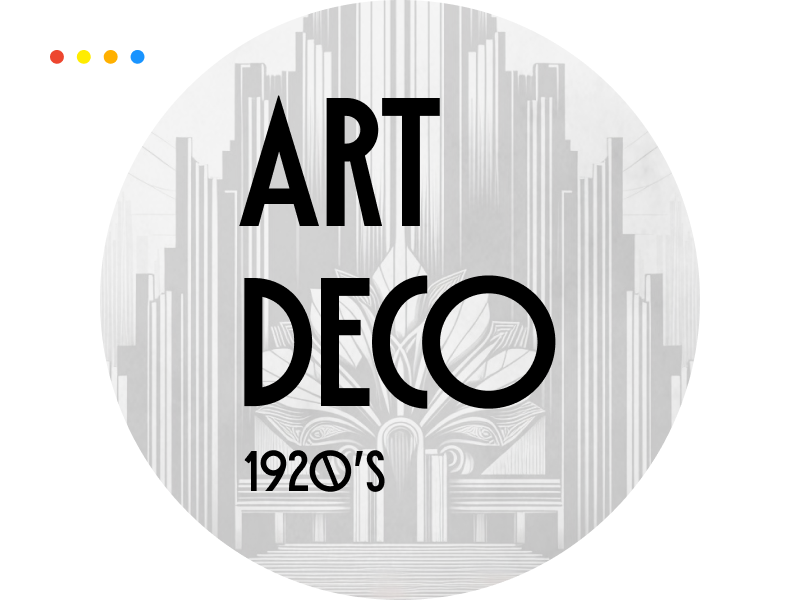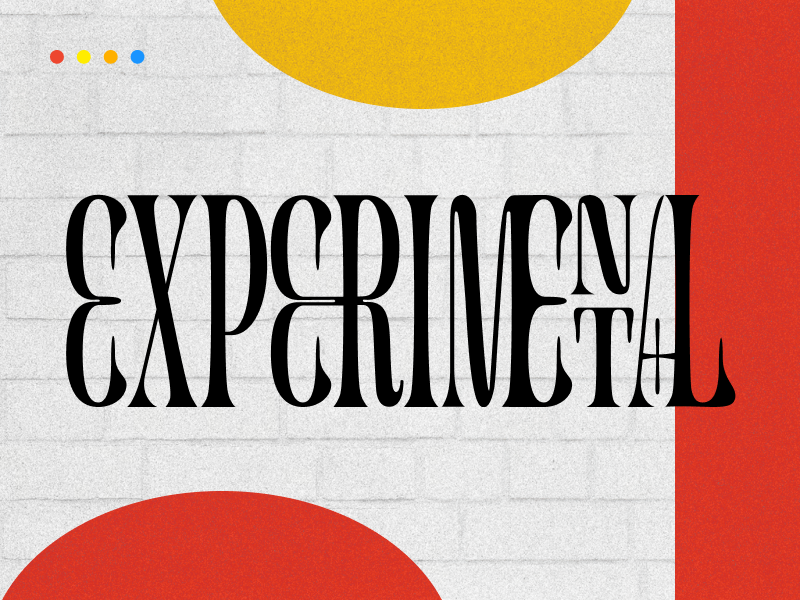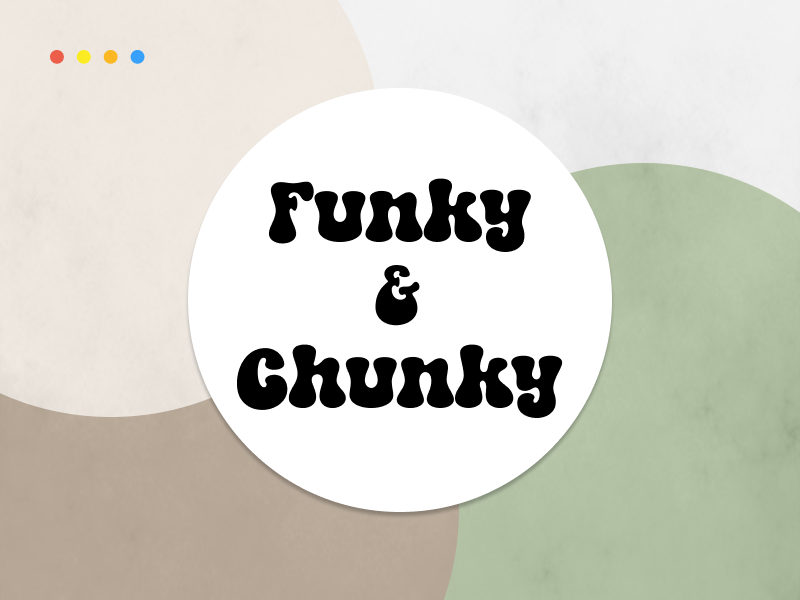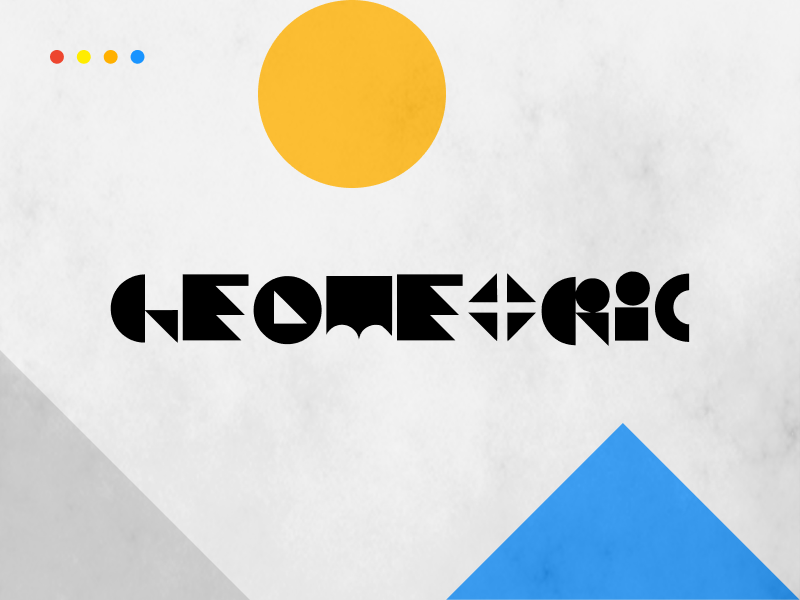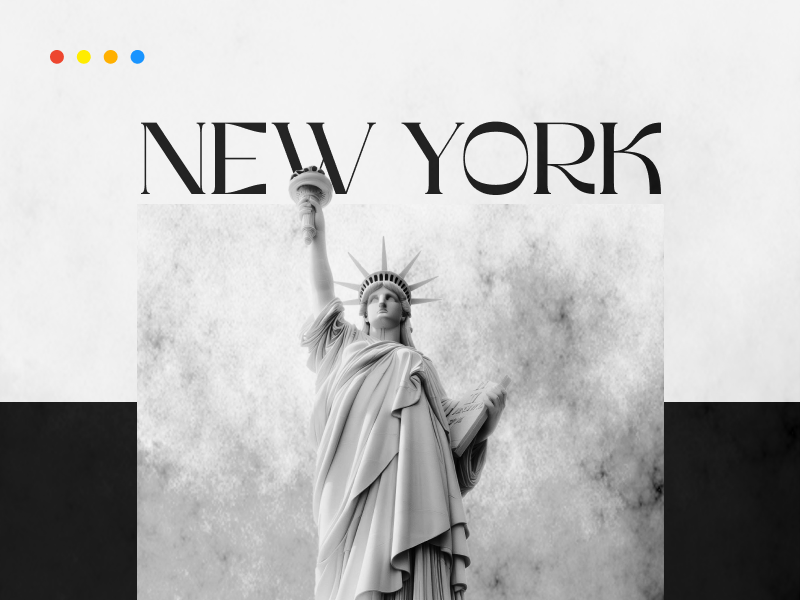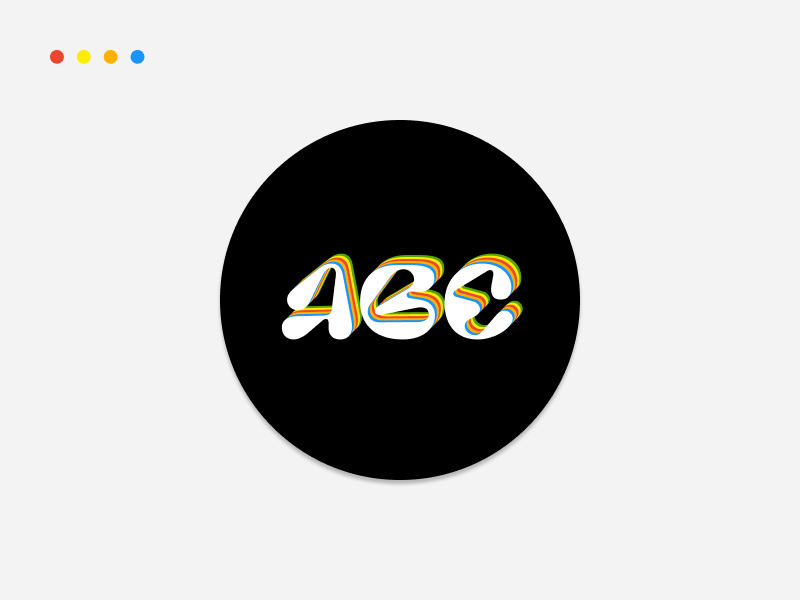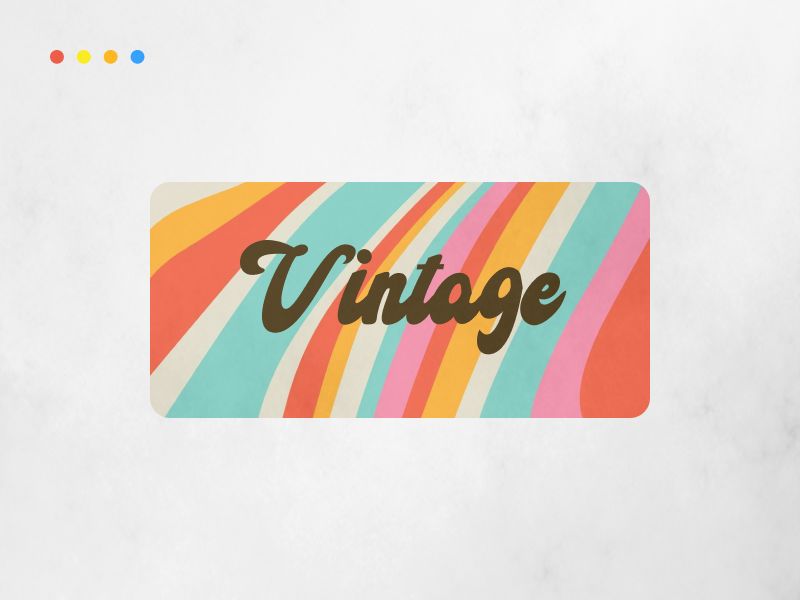
It’s again that exciting part of the year when new graphic design trends begin to emerge. As for the 2024 font trends, there are already some interesting styles placing themselves among the hottest trends of the year.
Due to the importance of typography in web design, staying aware of font trends – what stays, what goes, and what’s new – is a must. Outdated fonts can quickly bring an outstanding design down, making you waste time and precious resources. On the other hand, taking advantage of new font styles can make your designs look modern and stylish.
In this article, I’ll show you which 2024 font trends demand your attention. You’ll learn about the best typography of this season and how they fit different brands so you can always choose the best font for your project.
The design world moves fast, making it challenging to keep up. I have already been exploring some new typography styles at my Los Angeles web design agency to figure out which trends will make it big this year.
If you own a design agency, are a freelance designer, or a design enthusiast, these are the eight 2024 font trends to keep an eye on:
Clean and minimalist font styles have been part of trend lists for a few years now, and 2024 won’t be the exception. Simple and aesthetic typography continues to appeal to users and drive sales. Since the minimalist graphic design style is also a hot trend for the year, this type of font is a must-try.
The best minimalist fonts are simple and elegant and provide high reliability. They are characterized by clean strokes, minimal shapes, ample breathing space that evokes a modern feeling, and clear letter spacing. Sans serif fonts are the most chosen typography when it comes to clean and simple trends.
This style is ideal for classy and luxury website design for brands looking to convey a sense of sophistication. They shine the most on web headings, but you can also use them for the body text. Minimalist fonts are highly legible, improving the overall user experience.
Retro is making a huge comeback in all design aspects, from website and logo design to fonts and social media designs. So, if you were considering getting into retro font design, now is the perfect time.
The vintage style is coming strong with its baseline lines, ornament loops, and artisan flair that deliver a warm and wispy feeling. This is a fun style to work with; this trend is all about bringing elements from the past into modern designs to make unique creations.
There are tons of fonts you can choose for your retro project, or you can even create custom fonts. The most typical typography for vintage projects is classic serif fonts with ornate details. But as I said, you have plenty of other options. Some vintage classics such as Old Standard and the Rumble Brave Vintage Fonts. And bolder ones, such as Malibu and Gunydrops.
The typical curvy lines from vintage typography bring movement and dynamism to any design. This trend can be particularly effective for brands that evoke craftsmanship and artisan flair or want to express a sense of nostalgia or tradition.
In the last couple of years, we have seen how geometric fonts experienced an increase in popularity. We can expect this font style to keep showing up as everyone’s favorite trend this year.
Geometric sans serif fonts are highly functional; they are easy to read, giving designs a nice visual appeal and making them more accessible for users. Besides being functional, they are also extremely versatile. They are a good choice for both fun and serious companies; you can make them work for classy brands and also tech-savvy businesses.
Fonts such as Avenir, Migo, Visby, Helvetica Neue, and Futura are perfect to give your designs a clean and polished look.
A few years ago, the boom of experimental fonts became worldwide popular, bringing edgy but almost illegible characters into web design. This year, we are giving that style a switch to bring order to chaos and take the best out of this trend.
I am talking about a subtle, friendly experimental typography where designers have the chance to unleash their creative skills, but they still prioritize accessibility over all things. After all, accessible and easy-to-read sites are fundamental to delivering a good user experience and engaging potential clients.
Unlike traditional or rigid fonts, experimental typography breaks the rules by using unconventional elements, such as exaggerated proportions, abstract shapes, and irregular contours. Thanks to modern design tools, any designer can venture into creating eye-catching experimental fonts that stand out from the competition.
You can use the experimental font to express a brand’s unique image and personality, for creative businesses, to highlight important information on a website, or for bold and edgy company branding.